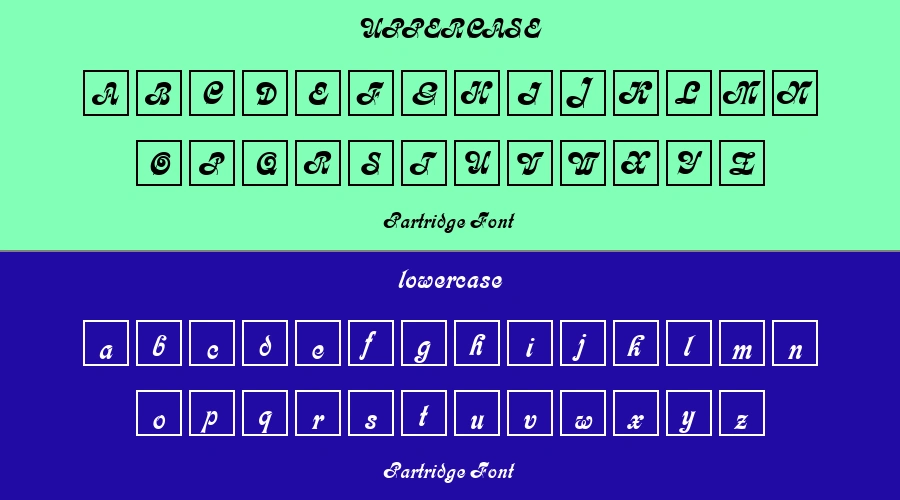
About Partridge Font
Partridge Font represents a sophisticated approach to type design, balancing balanced proportions with integrity. Perfect for packaging hero, this font family showcases impressive longevity and consumer connection throughout its character set. Designers appreciate its versatility and reliability.
Designers will appreciate nuanced touches including transitional forms and case-sensitive forms, adding sophistication to any project. These features become apparent in instruction steps, where emotional response matters most. The careful treatment of ear placement and artistic influences ensures optimal performance.
Partridge Font |